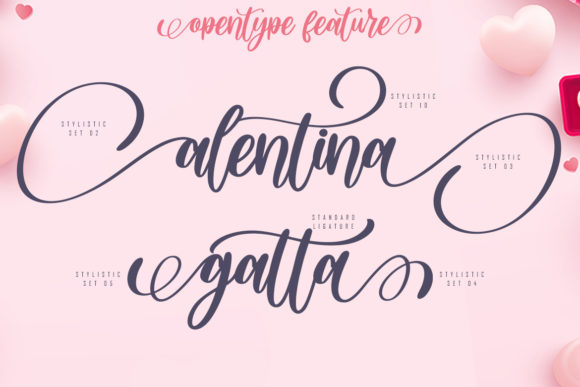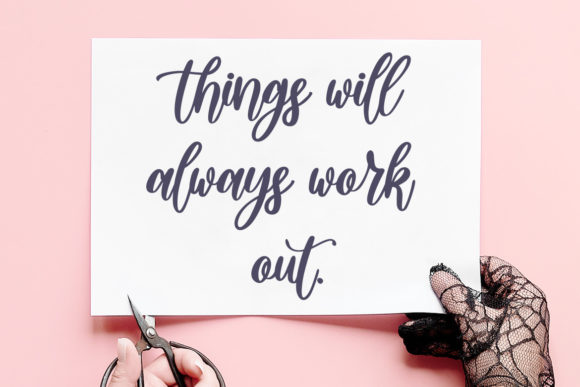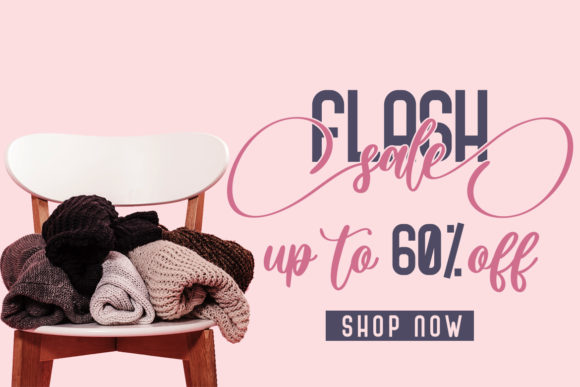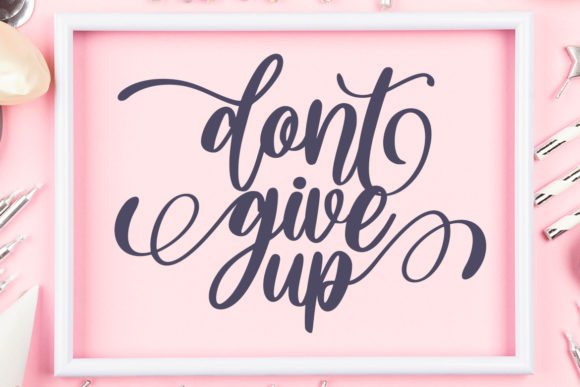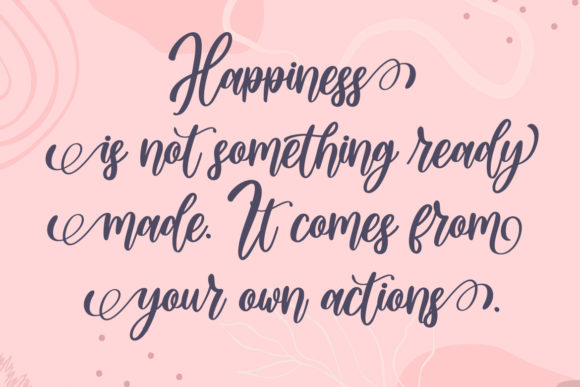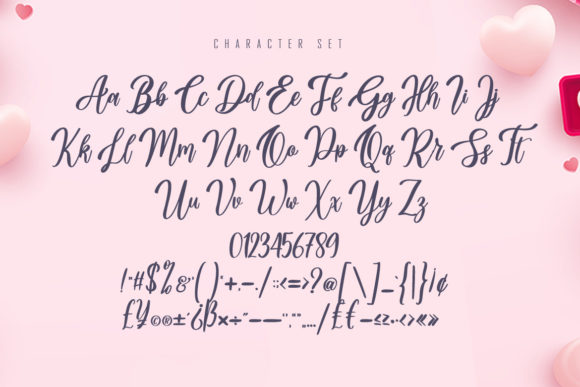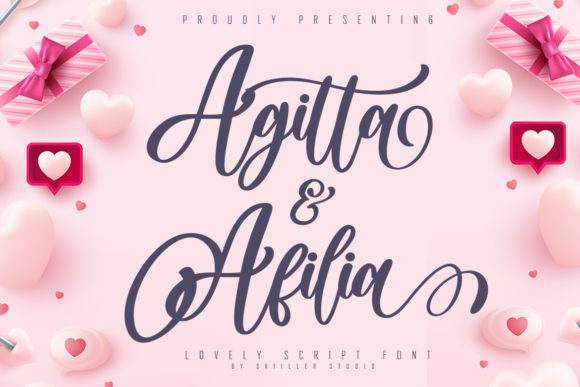
Discover the Elegance of Agitta Afilia Font: Elevate Your Designs with Style
In the world of typography, few fonts manage to capture the essence of elegance and style as effectively as Agitta Afilia. This stunning script font has been turning heads with its ravishing style, making it a favorite among designers and crafters looking to add a touch of sophistication to their projects. In this article, we’ll delve into the features of Agitta Afilia, explore its uses, and understand why it has become a go-to choice for creating gorgeous designs.
What is Agitta Afilia Font?
Agitta Afilia is a stylish and elegant script font that embodies the perfect blend of classic charm and modern flair. Its fluid strokes, intricate details, and beautiful swashes make it an ideal choice for a wide range of design projects, from wedding invitations and branding materials to packaging and digital content. Whether you’re a professional designer or a crafting enthusiast, Agitta Afilia offers the versatility and aesthetic appeal you need to elevate your work.
Key Features of Agitta Afilia Font
One of the standout features of Agitta Afilia is its PUA (Private Use Area) encoding. This means that the font includes a comprehensive set of glyphs and swashes that are easily accessible, allowing you to experiment with different styles and combinations to achieve the perfect look for your design. The PUA encoding ensures that you can unlock the full creative potential of Agitta Afilia, making it easier than ever to add a personal touch to your projects.
Advantages of Using Agitta Afilia
- Elegant and Versatile: Agitta Afilia’s elegant design makes it suitable for a variety of projects, from formal events to digital content. Its versatility allows you to use it across different mediums, ensuring a consistent and stylish look.
- PUA Encoded: The PUA encoding of Agitta Afilia provides you with extensive glyphs and swashes, giving you the flexibility to customize your designs and add unique touches.
- User-Friendly: Agitta Afilia is designed to be easy to use, even for those who are new to working with script fonts. The accessible glyphs and swashes make it simple to achieve professional-looking results.
- High-Quality Design: The font is crafted with attention to detail, ensuring that it looks great in both print and digital formats. Its high-quality design makes it perfect for projects where aesthetics matter.
How to Use Agitta Afilia Font
- Wedding Invitations: Create beautiful, custom wedding invitations that set the tone for the big day. Agitta Afilia’s elegant style is perfect for wedding stationery.
- Branding Materials: Use Agitta Afilia to develop a cohesive brand identity. Its stylish appearance makes it ideal for logos, business cards, and letterheads.
- Digital Content: Enhance your digital content with Agitta Afilia. Whether it’s a blog post, social media graphic, or website header, this font will add a touch of class to your online presence.
- Crafting Projects: If you’re a crafter, Agitta Afilia can be used to add a personal touch to your handmade items, such as journals, scrapbooks, and DIY decorations.
Tips for Getting the Most Out of Agitta Afilia
To truly make the most of Agitta Afilia, consider the following tips:
- Experiment with Swashes: Don’t be afraid to try out different swashes and glyphs to find the combination that works best for your design.
- Mix and Match: Combine Agitta Afilia with other fonts to create a unique and eye-catching design. Its elegant style pairs well with both serif and sans-serif fonts.
- Pay Attention to Spacing: Ensure that your text is well-spaced to maintain readability. Agitta Afilia’s flowing script style looks best when given enough room to breathe.
Agitta Afilia is more than just a font – it’s a design tool that can elevate your projects to new heights of elegance and style. With its PUA encoding, extensive glyphs, and swashes, it offers endless possibilities for creative expression. Whether you’re a designer looking to enhance your portfolio or a crafter seeking to add a professional touch to your work, Agitta Afilia is an excellent choice. Embrace its ravishing style and discover how it can transform your designs into stunning works of art.